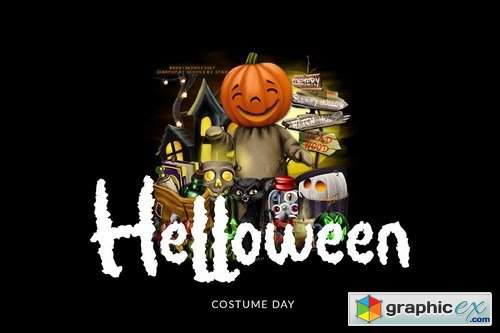
Mystery Night Helloween Font
Mystery Night Helloween Font is a spooky horror font . This perfect for Invitation Helloween Party , branding projects, logo, book cover design, tshirt designs, social media posts, advertisements, product packaging, product designs, label, watermark, invitation, stationery and any projects